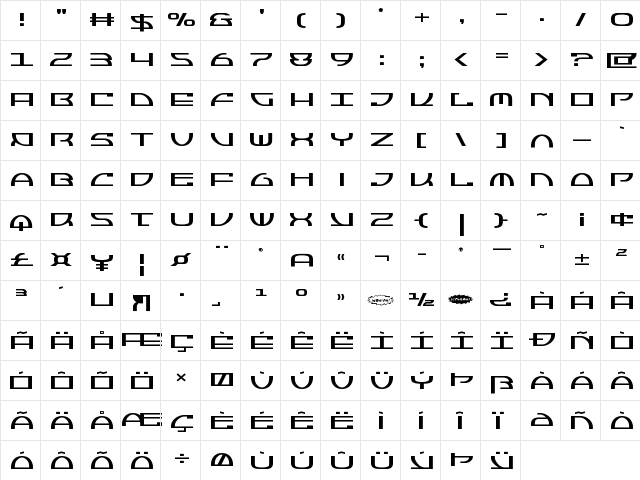
Jumptroops Expanded Expanded
Design Context for Jumptroops Expanded Typeface
Jumptroops Expanded is a composed and adaptable typeface that performs quietly and consistently across a wide range of design contexts.